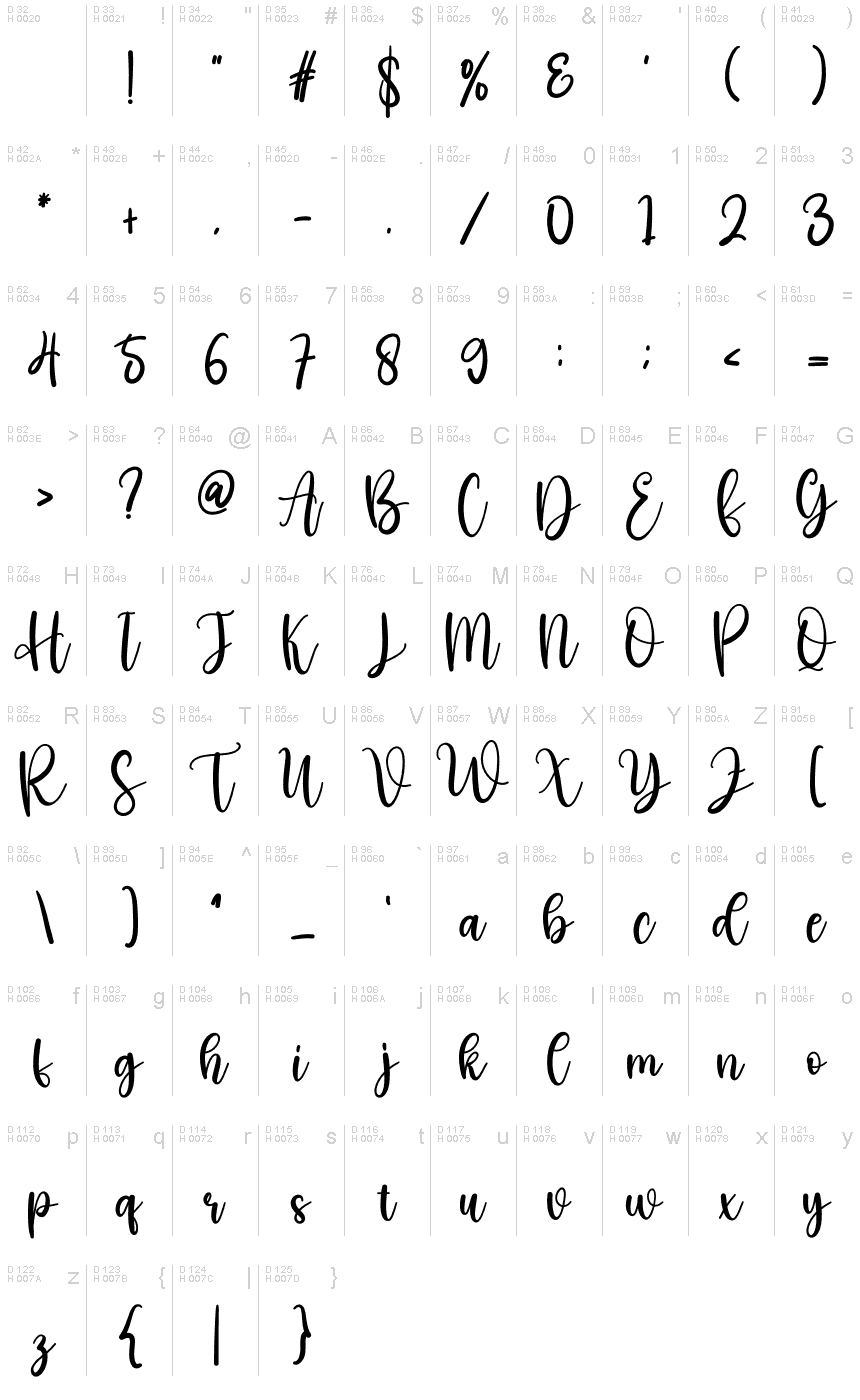
Basketball
Basketball, the dreamy and playful semi-light handwritten font designed by scratchones, is perfect for any project that needs a touch of imaginative flair. With its whimsical curves and bouncy baseline, this font is ideal for anything from children's books to creative advertising campaigns. Its unique style and easy-to-read letters make it great for packaging designs or product branding as well. Take your designs to the next level with Basketball's charm and versatility. Whether it’s a birthday invitation or a new logo design, this font will have your audience smiling from ear to ear.
the latest style letters are perfect for wall displays, wedding invitations, social media post logos,
and any project that requires taste handwriting.